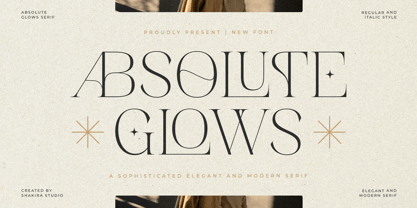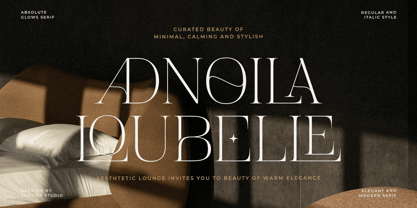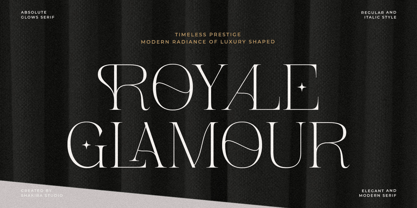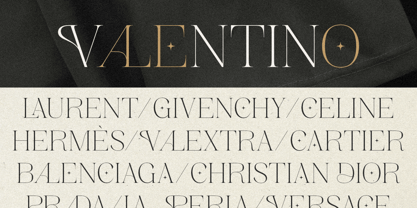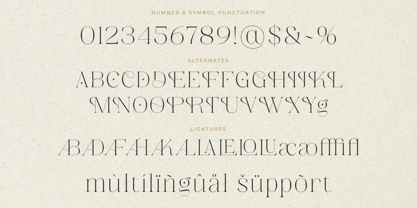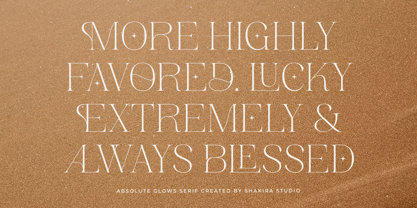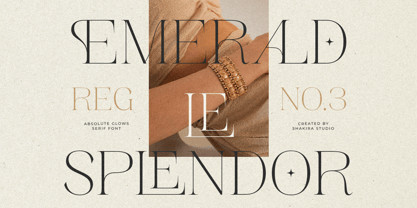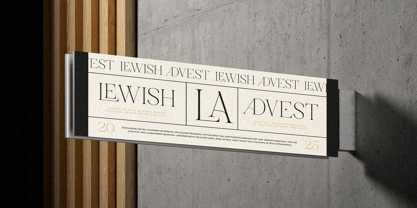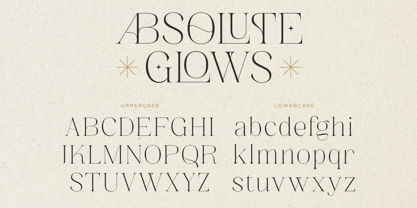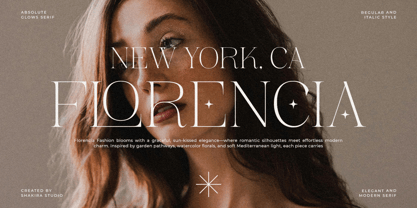
Absolute Glows
Die Schriftfamilie Absolute Glows wurde von Idhham Cholid Rikzano Yahya entworfen und von Shakira Studio veröffentlicht. Absolute Glows enthält 2 Stile und Familienpaketoptionen. Mehr über diese Familie
Absolute Glows is a modern elegant display serif typeface developed for premium branding and sophisticated editorial applications. The font combines graceful contrast, refined curves, and stylish details for a polished upscale appearance. With multilingual support and alternate characters, Absolute Glows performs beautifully across logos, invitations, fashion branding, packaging, and magazine layouts. An excellent choice for professionals seeking timeless premium typography. Features Alternates Ligatures Multilingual support Professional kerning Regular & Italic Elegant serif construction Specifications Language Support: Western, Central Europe Features: Alternates, Ligatures, Italic Recommended For Luxury branding, editorial design, invitations, packaging, fashion identity, premium logos
Designer: Idhham Cholid Rikzano Yahya
Foundry: Shakira Studio
Absolute Glows
Shakira Studio is a type foundry based in Malang - Indonesia and founded by Idhham Cholid Rikzano Yahya . We have a special love for unique serif typefaces but in addition, we design all kinds of retail and custom fonts that are high quality and have a soul to meet font needs, especially for designers and crafters.. Please visit our official website at shakirastudio.com for contact and more details.